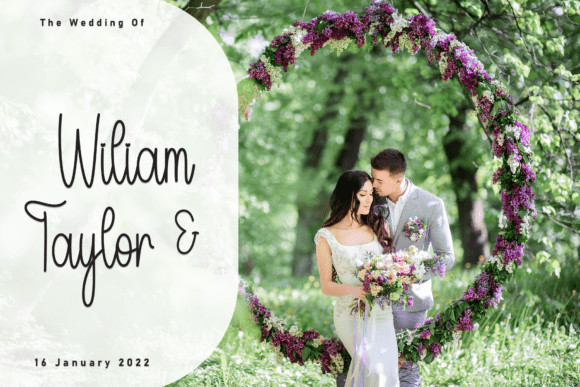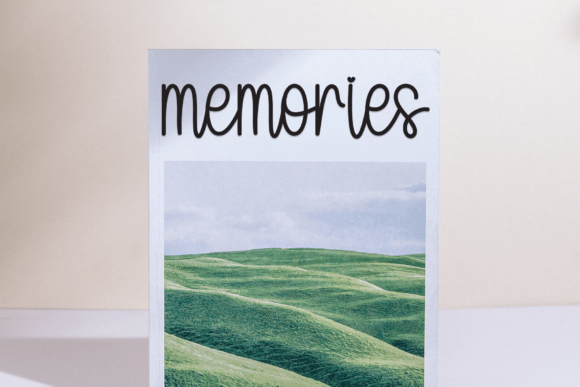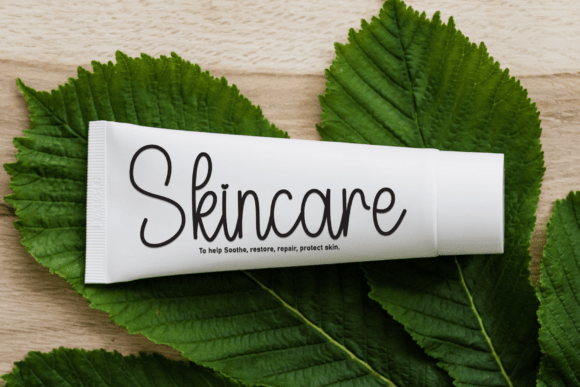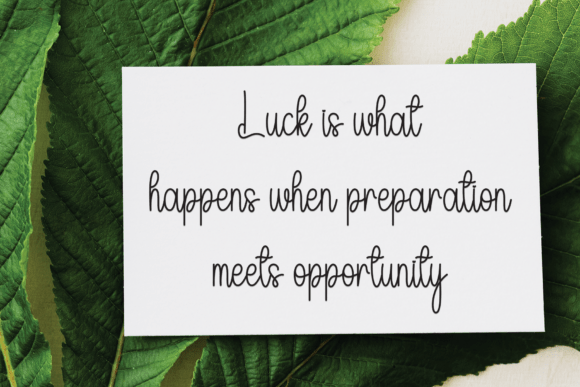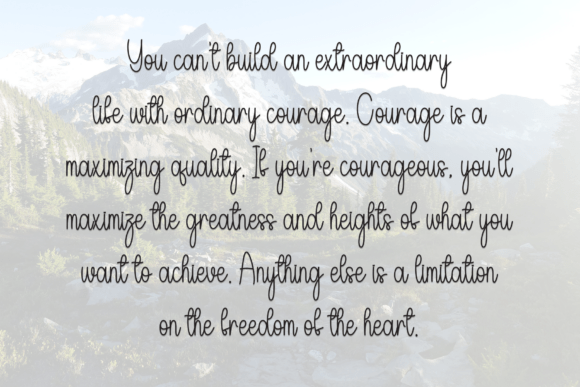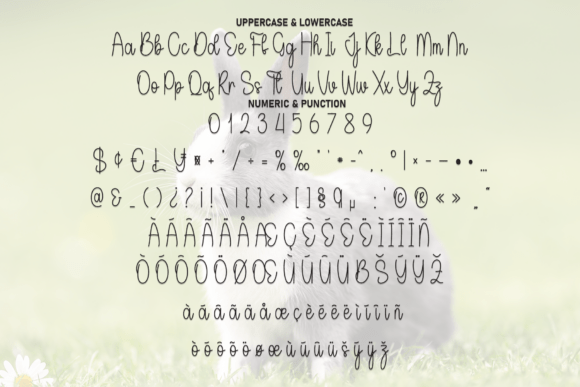
Bunny Font: Add a Touch of Whimsy to Your Designs
Are you looking for a font that can add a dash of personality and charm to your designs? Look no further than the Bunny Font, an enchanting and affectionate handwritten display font that is sure to capture the hearts of designers and crafters alike. With its distinctive hand-lettered style and textured elegance, this font is perfect for creating customized wedding invites, one-of-a-kind greeting cards, and other design projects that require a touch of whimsy.
What Makes Bunny Font So Special?
The Bunny Font is a unique and exciting font that boasts a blend of charming and lively design details. Its hand-lettered style gives it a personal and sincere warmth that is hard to find in digital fonts. The font’s textured elegance is reminiscent of linen, adding a tactile quality to your designs that will make them stand out. Whether you’re creating invitations, greeting cards, or other paper crafts, the Bunny Font is sure to add a touch of magic to your projects.
Perfect for Wedding Invites and Greeting Cards
The Bunny Font is an ideal choice for creating customized wedding invites and one-of-a-kind greeting cards. Its whimsical charm and textured elegance make it perfect for adding a personal touch to your wedding stationery or gifts. Imagine creating beautiful wedding invitations that set the tone for a romantic and memorable day, or crafting greeting cards that are truly unique and special. With the Bunny Font, you can add a touch of personality and charm to your designs that will make them truly unforgettable.
Why Choose Bunny Font?
So why choose the Bunny Font for your design projects? Here are just a few reasons why this font stands out from the rest:
- Unique and Whimsical: The Bunny Font has a distinctive hand-lettered style that is both unique and whimsical, making it perfect for designers and crafters who want to add a touch of personality to their projects.
- Textured Elegance: The font’s textured elegance is reminiscent of linen, adding a tactile quality to your designs that will make them stand out.
- Perfect for Wedding Invites and Greeting Cards: The Bunny Font is an ideal choice for creating customized wedding invites and one-of-a-kind greeting cards that are truly special.
- Easy to Use: The Bunny Font is easy to use and can be integrated into a variety of design projects, from digital files to print-on-demand products.
How to Use Bunny Font in Your Designs
Using the Bunny Font in your designs is easy and fun. Here are a few tips to get you started:
- Pair it with Other Fonts: The Bunny Font pairs well with other fonts, so feel free to experiment with different combinations to create a unique look.
- Use it for Headings and Titles: The Bunny Font is perfect for headings and titles, where its whimsical charm and textured elegance can really shine.
- Add it to Your Digital Files: The Bunny Font can be easily added to your digital files, making it perfect for creating customized wedding invites, greeting cards, and other paper crafts.
In conclusion, the Bunny Font is a unique and exciting font that is sure to add a touch of whimsy and charm to your designs. With its distinctive hand-lettered style, textured elegance, and perfect blend of charming and lively design details, this font is perfect for designers and crafters who want to create customized wedding invites, one-of-a-kind greeting cards, and other design projects that require a touch of personality. So why wait? Download the Bunny Font today and start adding a touch of magic to your designs!